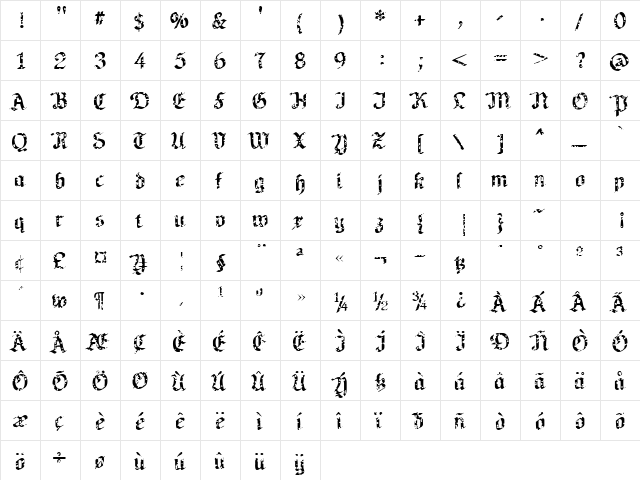
NeuAltischWormEaten Regular
Design Context for NeuAltischWormEaten Typeface
NeuAltischWormEaten is a composed and adaptable typeface that performs quietly and consistently across a wide range of design contexts.